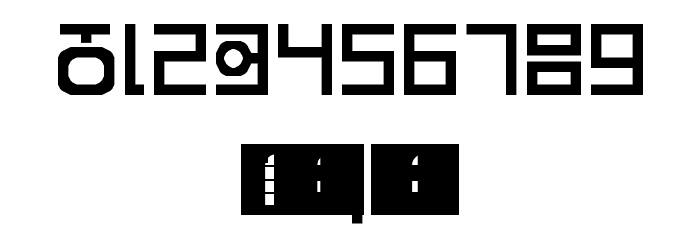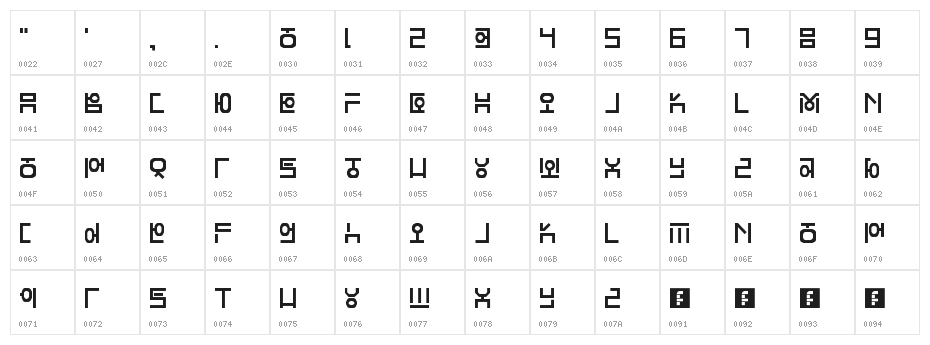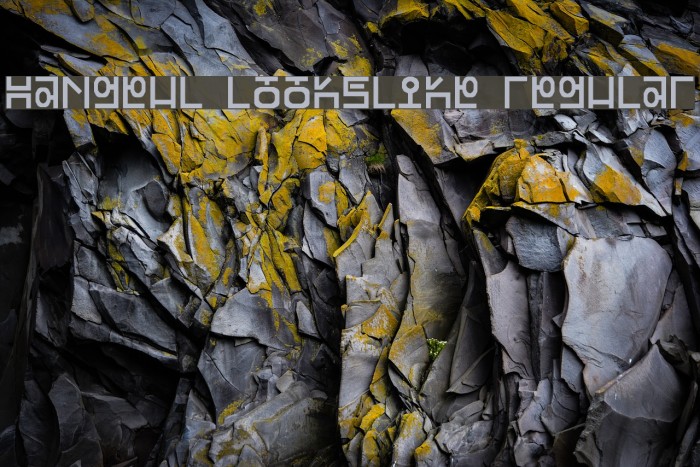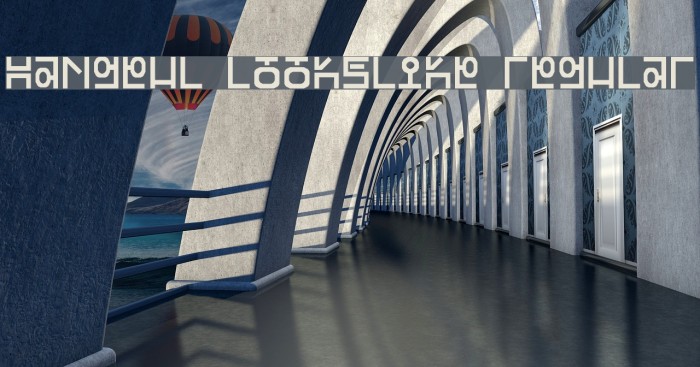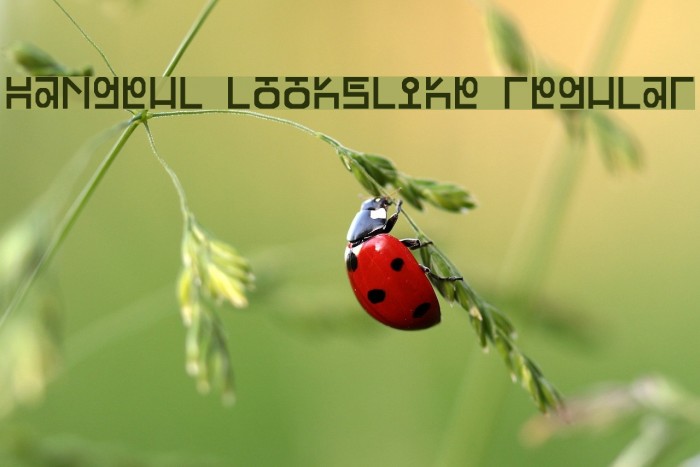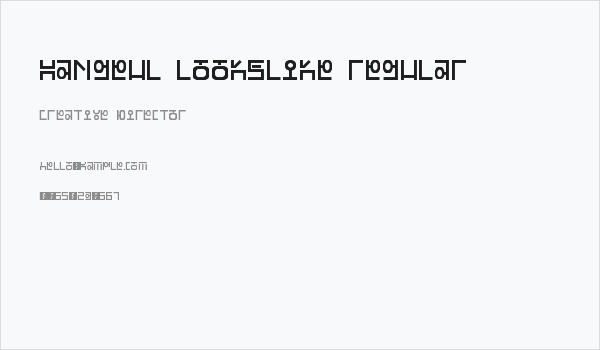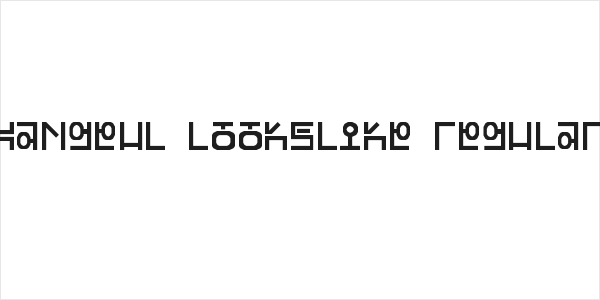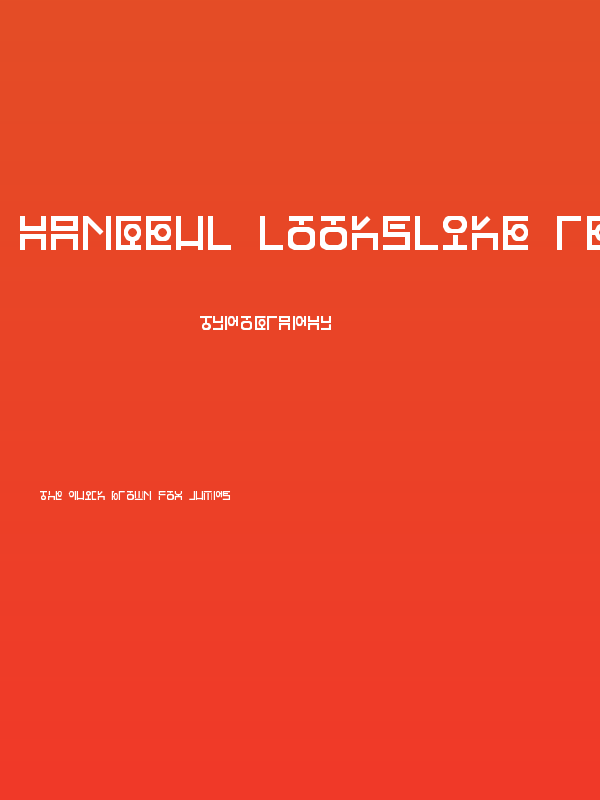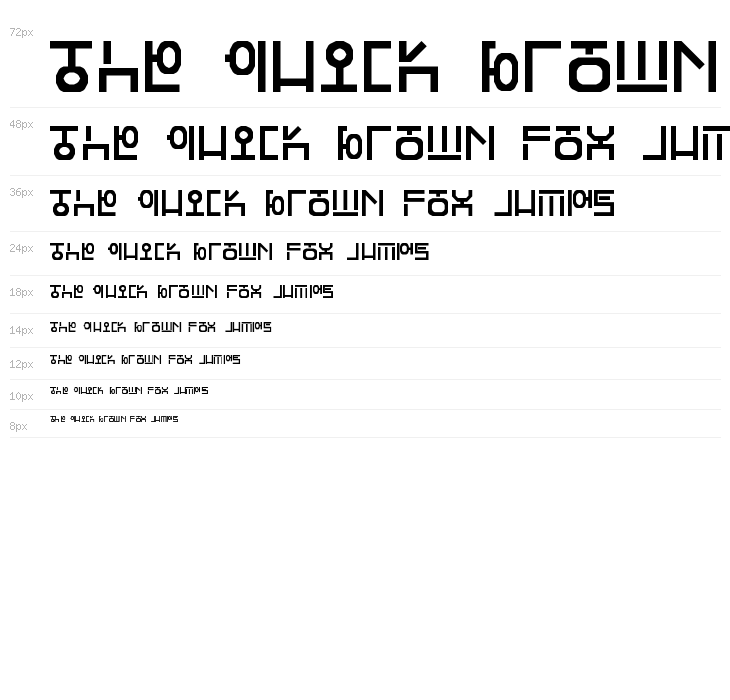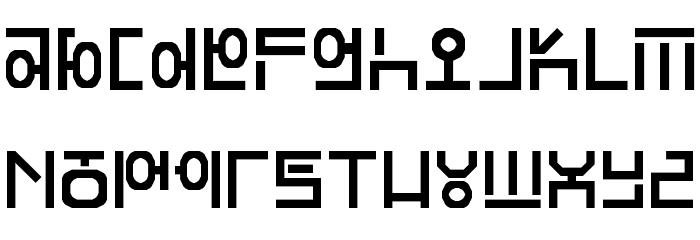
Hangeul Lookslike Regular Font
Hangeul Lookslike Regular Description
This font features a unique, geometric style that mimics the appearance of Hangeul characters, creating a modern and distinctive look. The characters are composed of bold, straight lines and right angles, giving them a structured and uniform appearance. The font maintains a consistent weight throughout, with no variation in stroke thickness, resulting in a low contrast design. The spacing between characters is normal, allowing for clear readability while maintaining its decorative appeal. This font's overall style is both modern and decorative, making it suitable for projects that require a contemporary and eye-catching typeface.
| Proposed Projects | Ideal for branding, posters, and digital media that require a unique and modern aesthetic. |